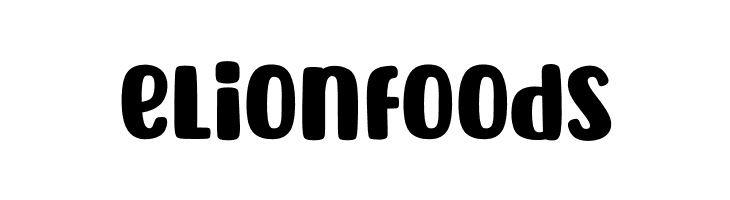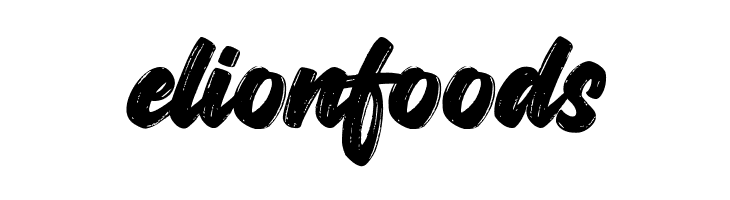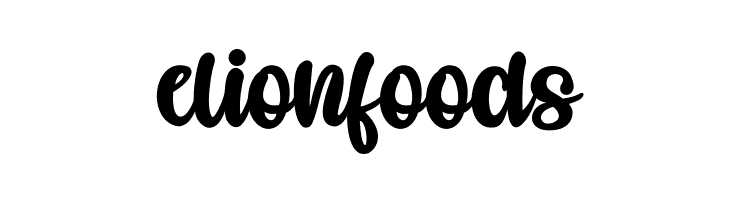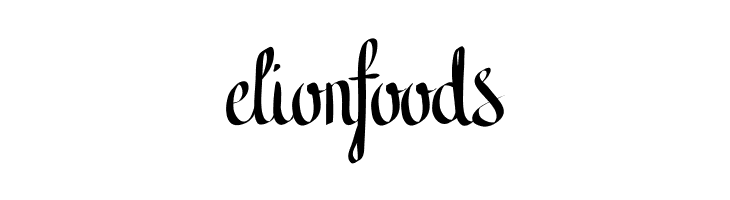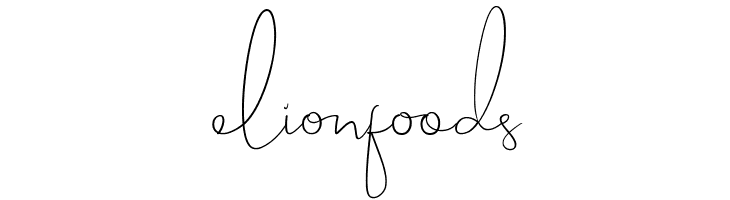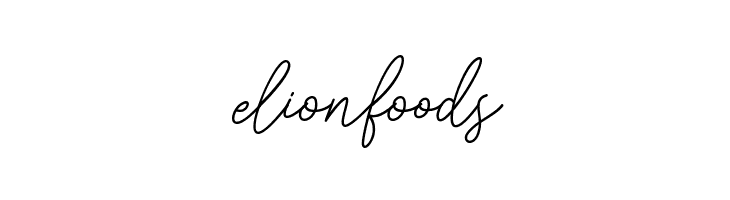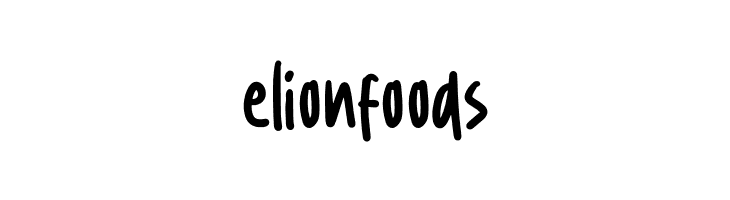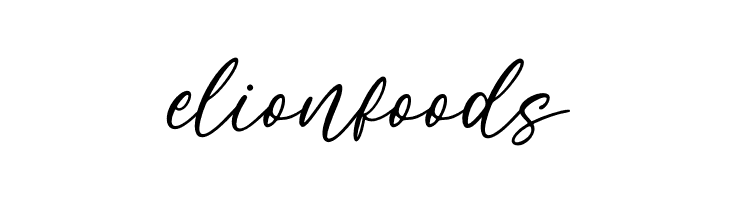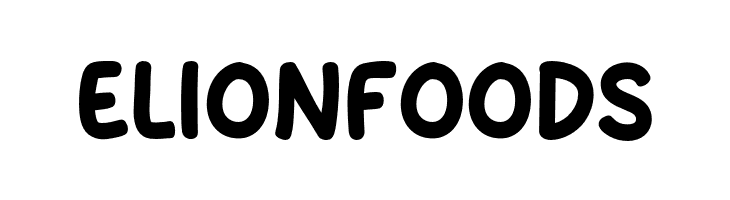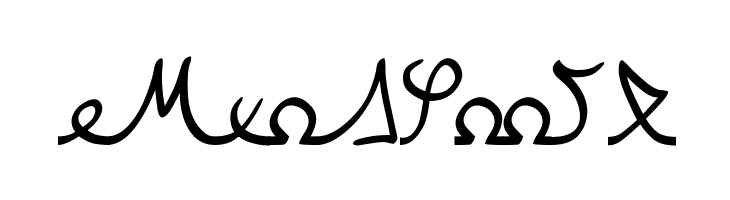
An artistic script font with flowing, interconnected letterforms and high contrast.
A flowing cursive font with interconnected strokes and a handwritten appearance.
A bold, decorative font with a textured, artistic design.
A lively, cursive font with fluid, interconnected letters and dynamic strokes.
A bold, playful handwritten font with smooth, rounded characters.
A playful, rounded font with bold, smooth curves and a friendly appearance.
A playful, bold font with rounded, thick strokes and a friendly appearance.
A bold, brush-style font with a dynamic, handwritten appearance.
A playful, casual handwritten font with smooth, rounded edges.
A playful, handwritten font with bold, rounded strokes and a casual, friendly style.